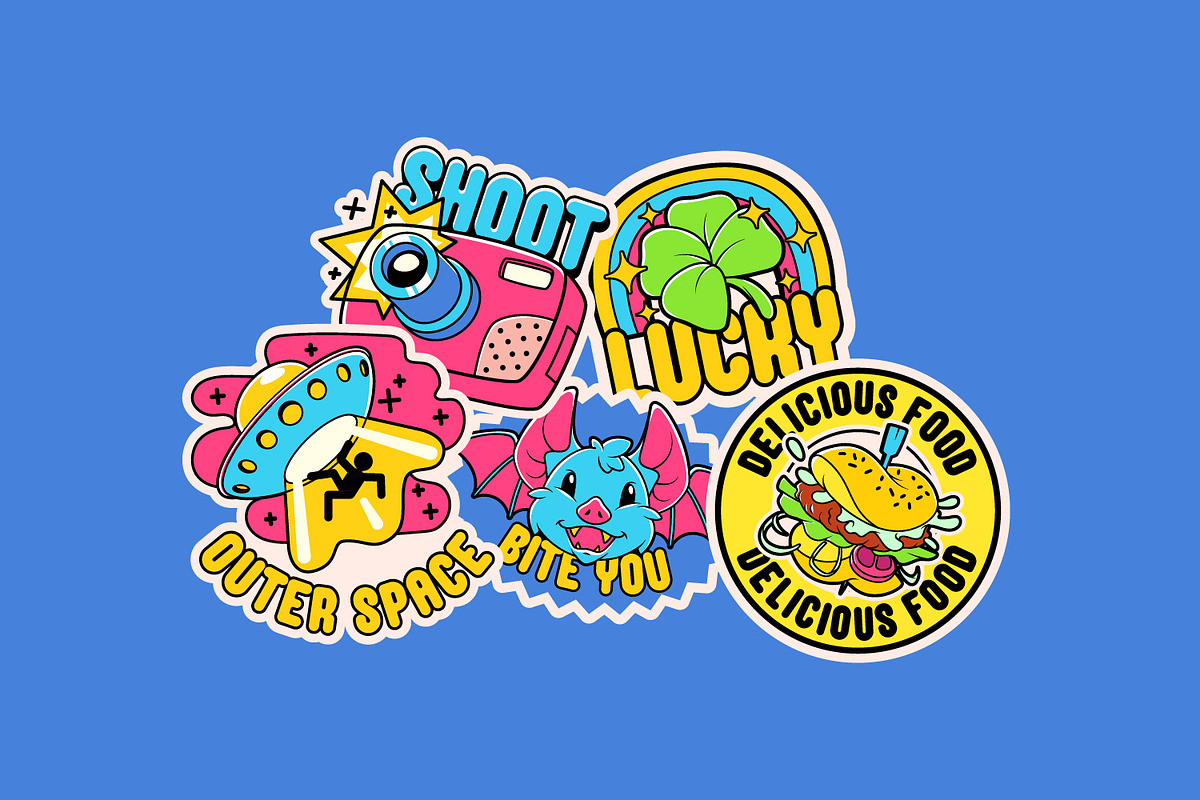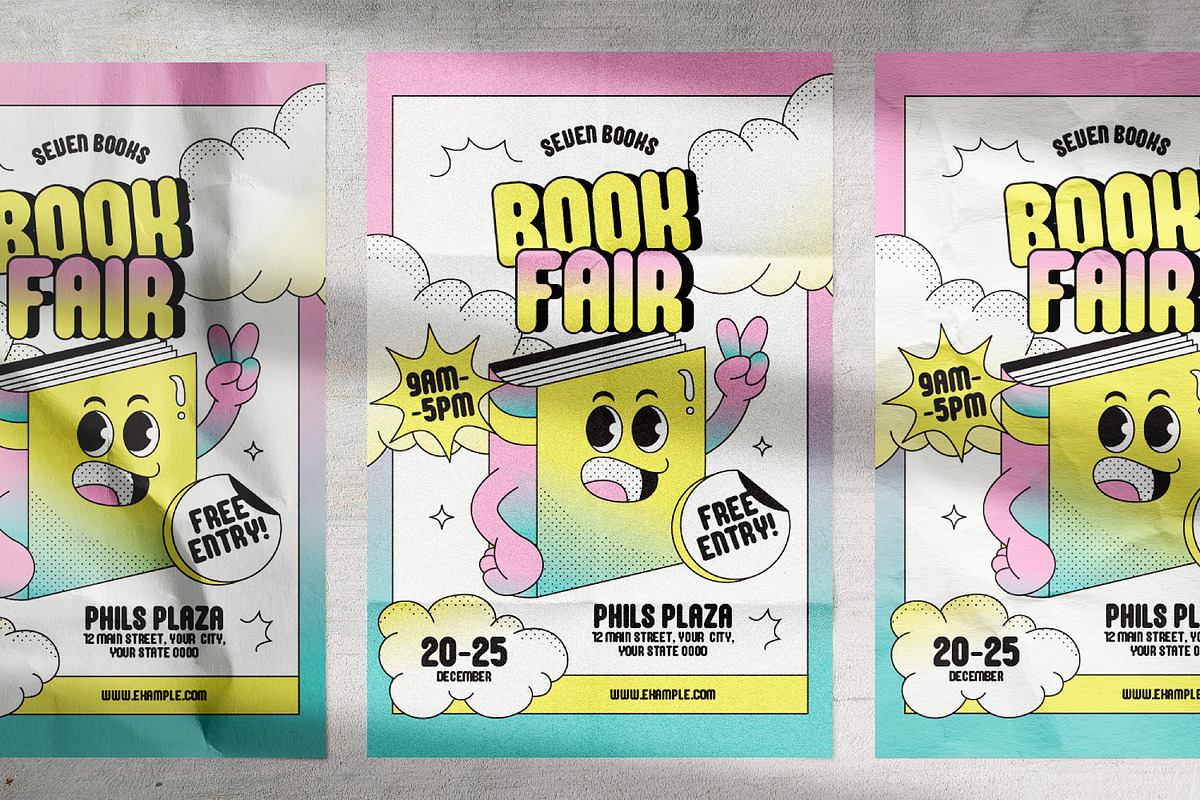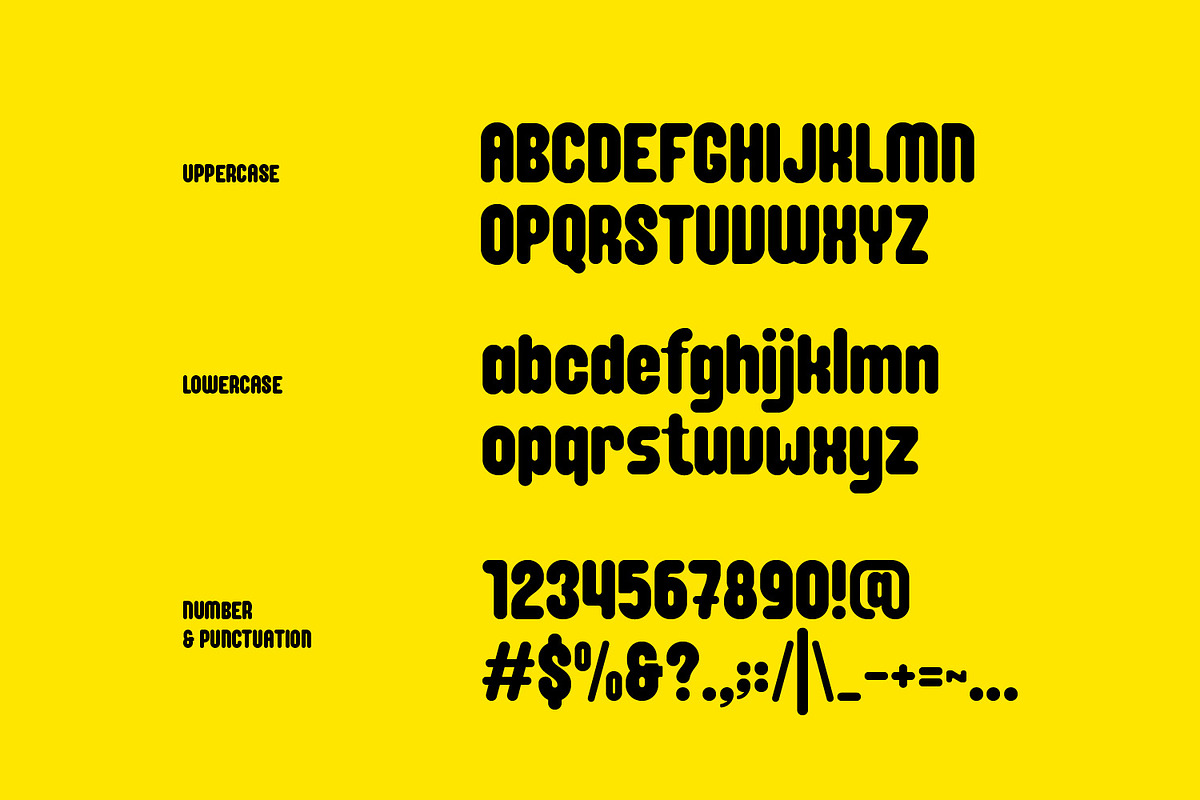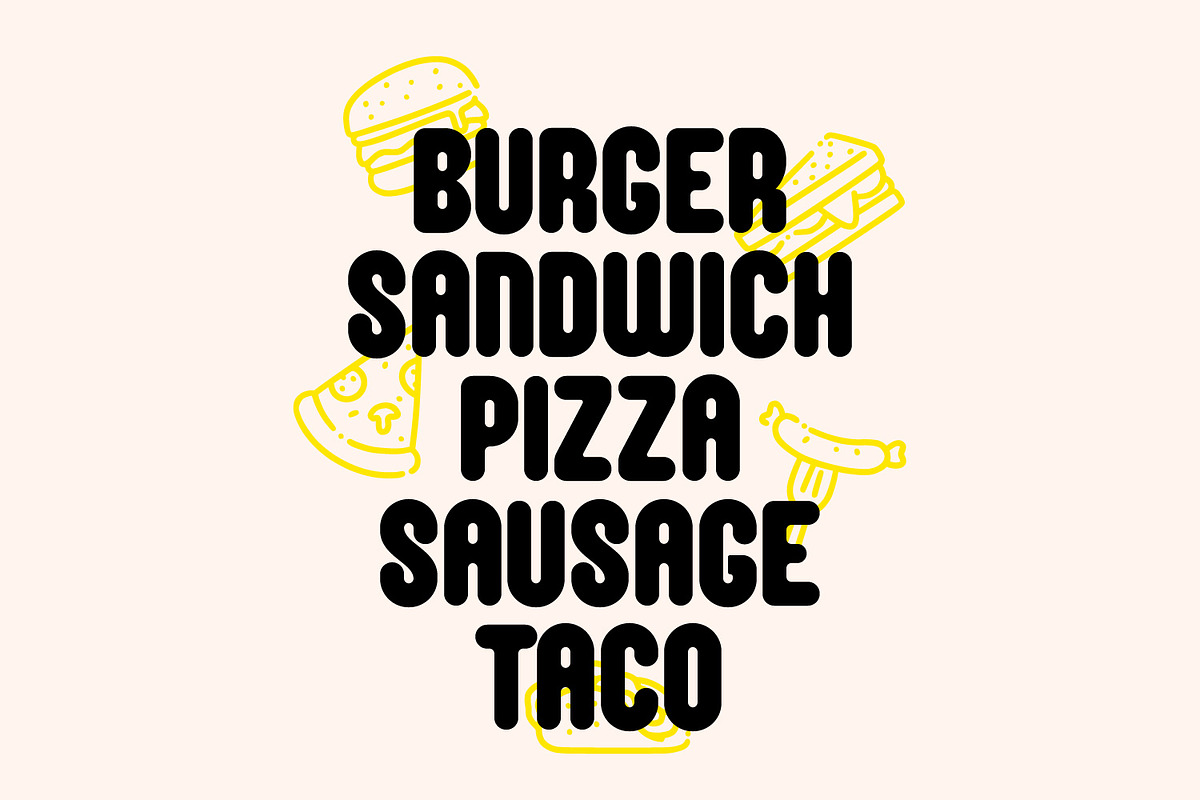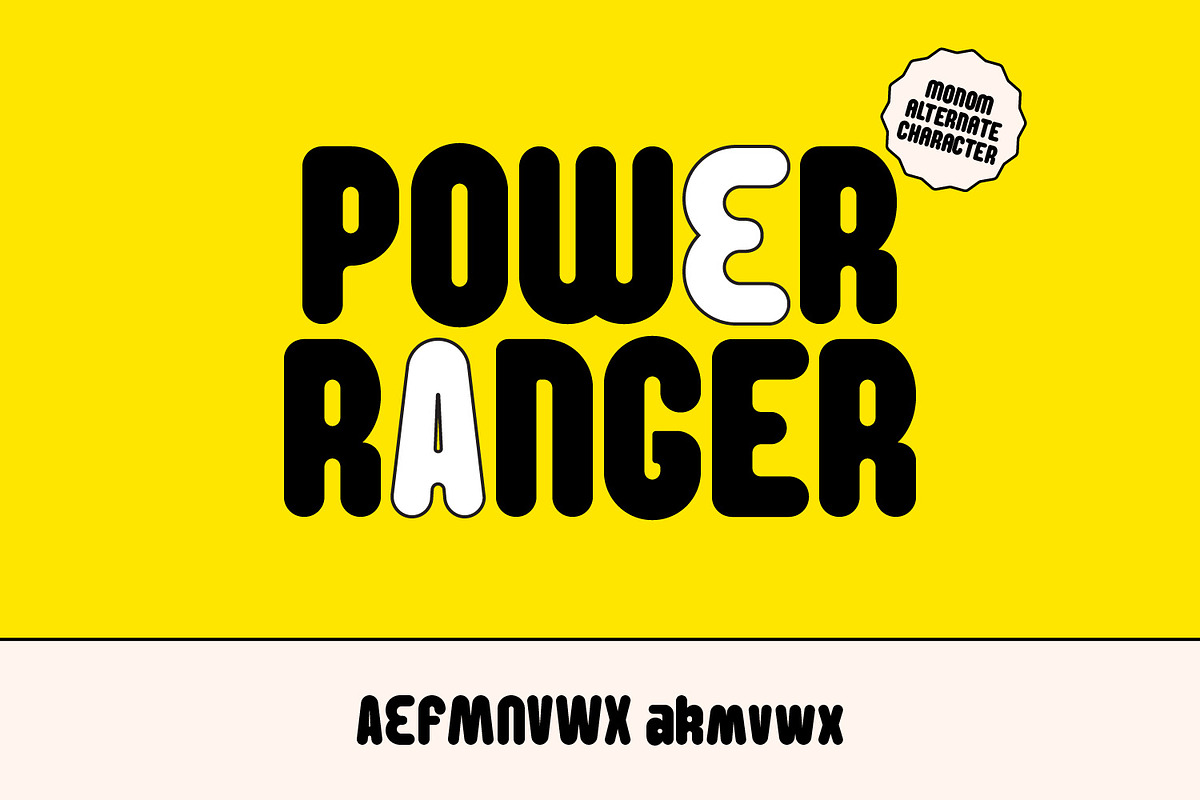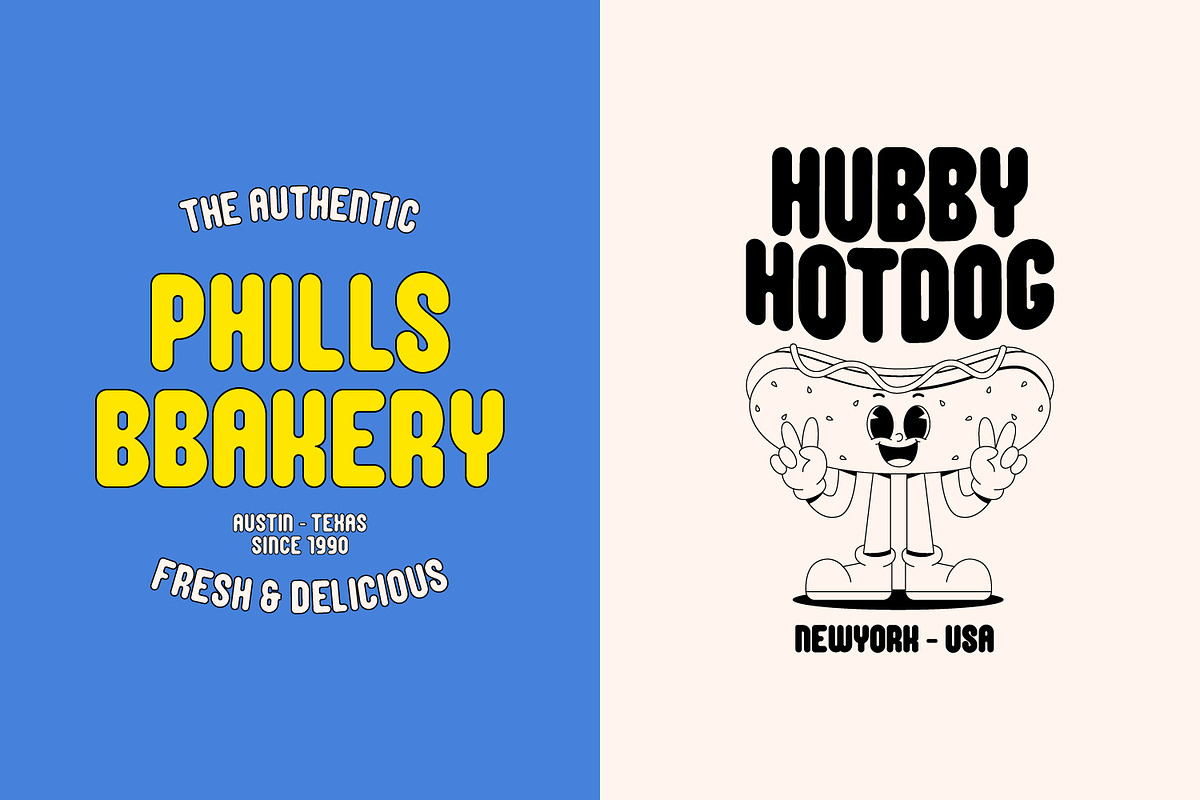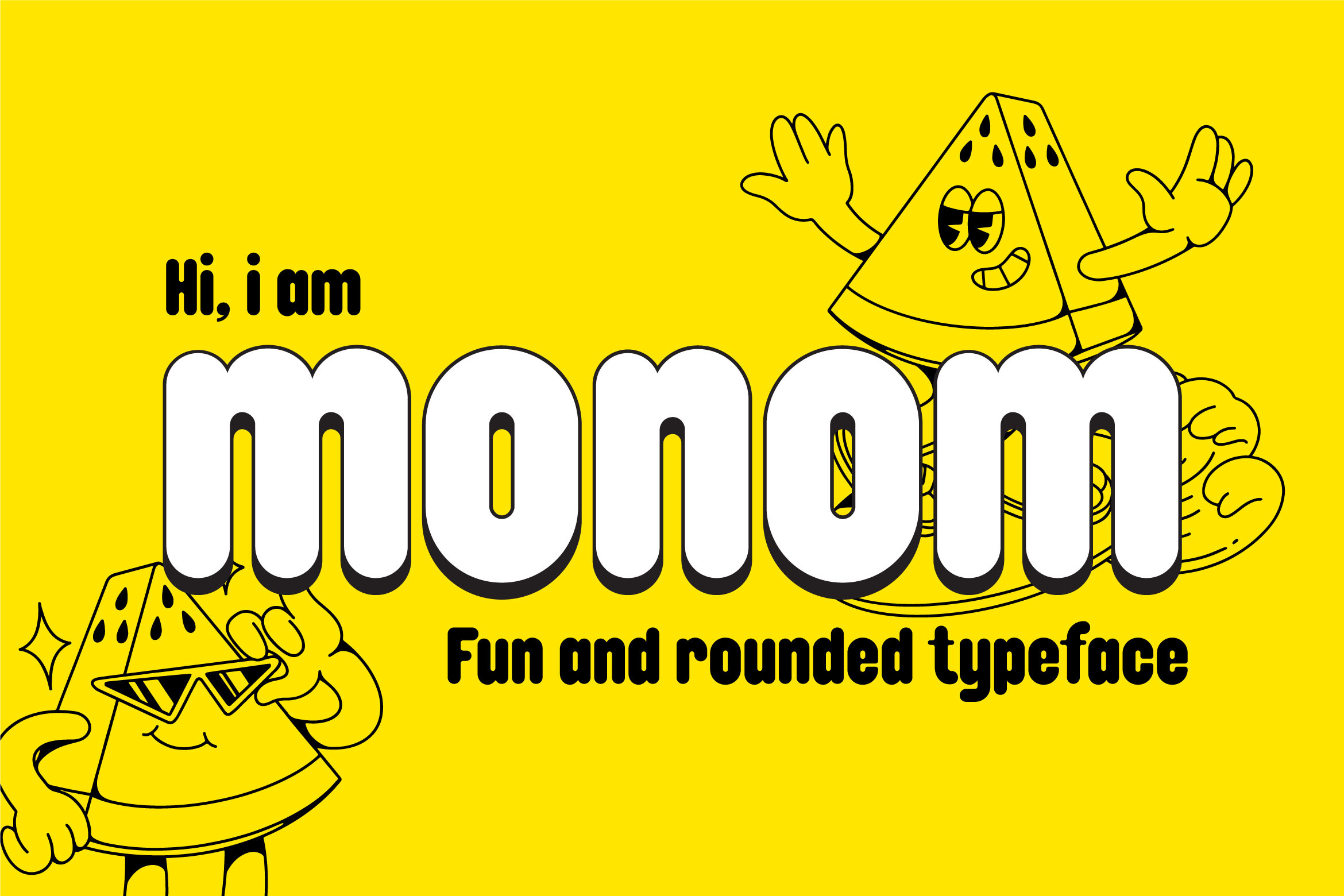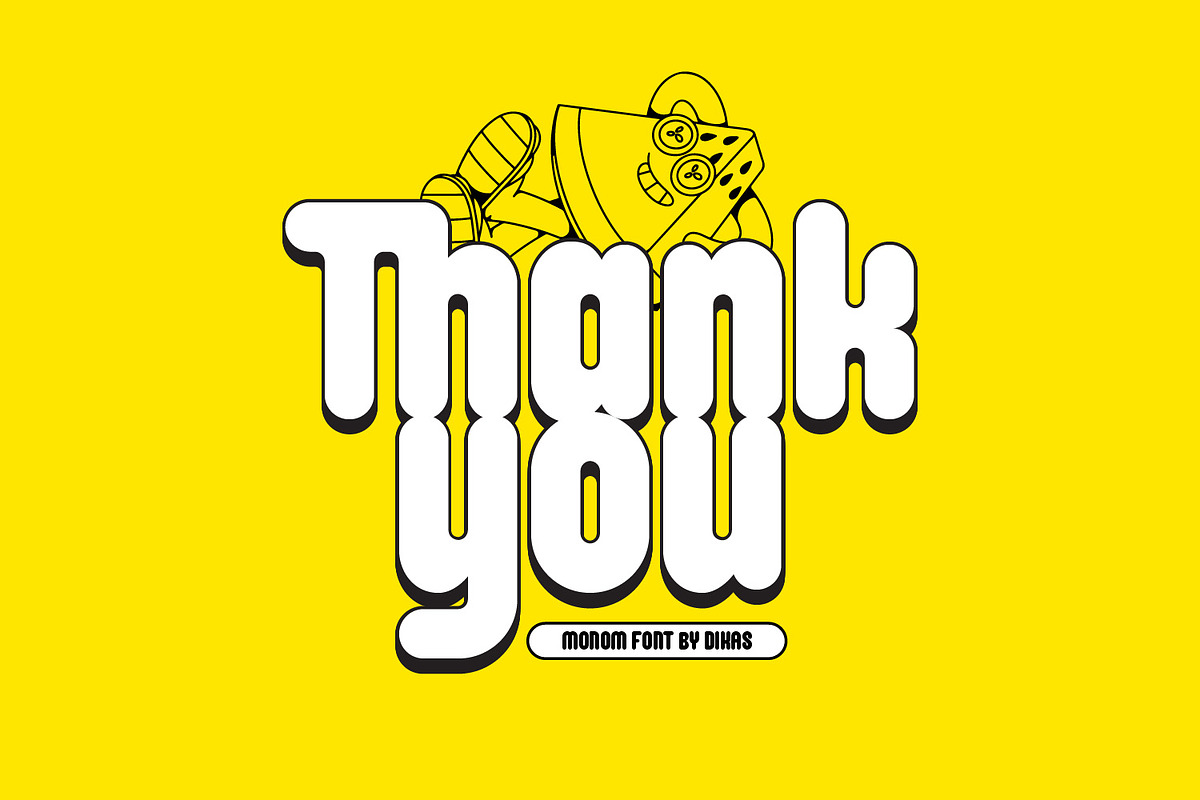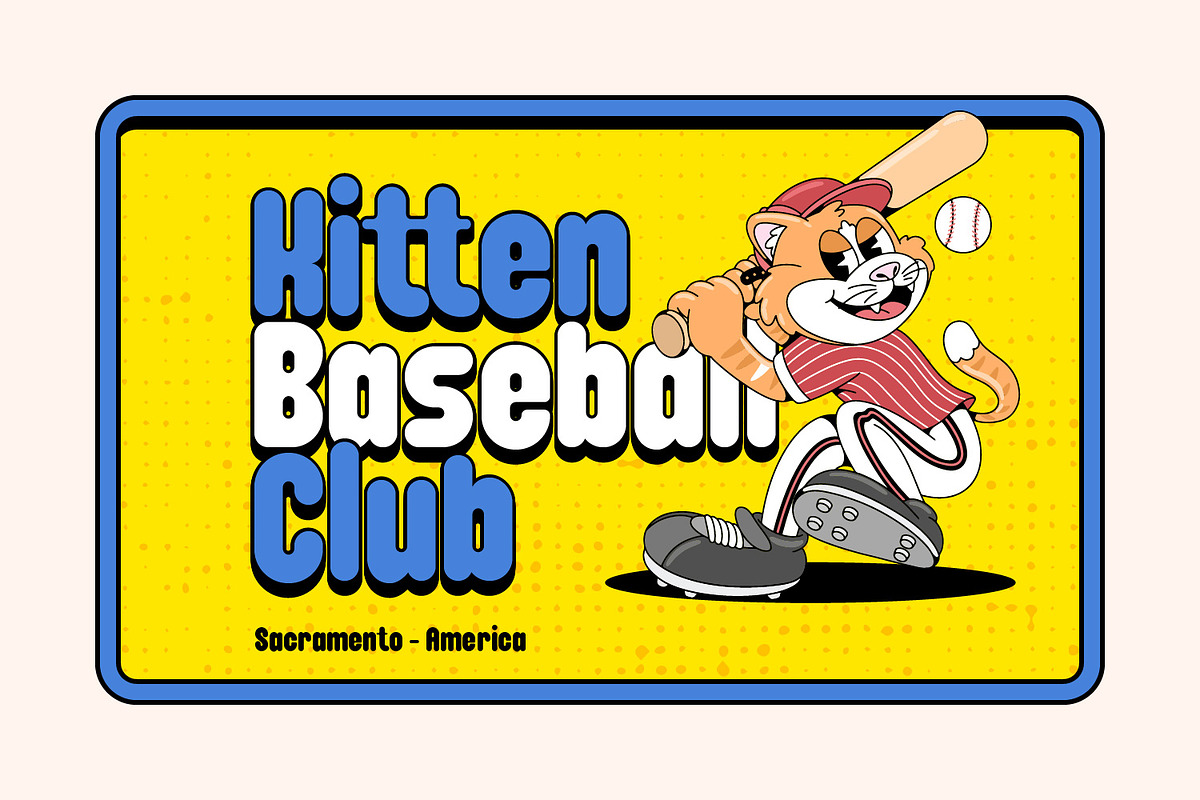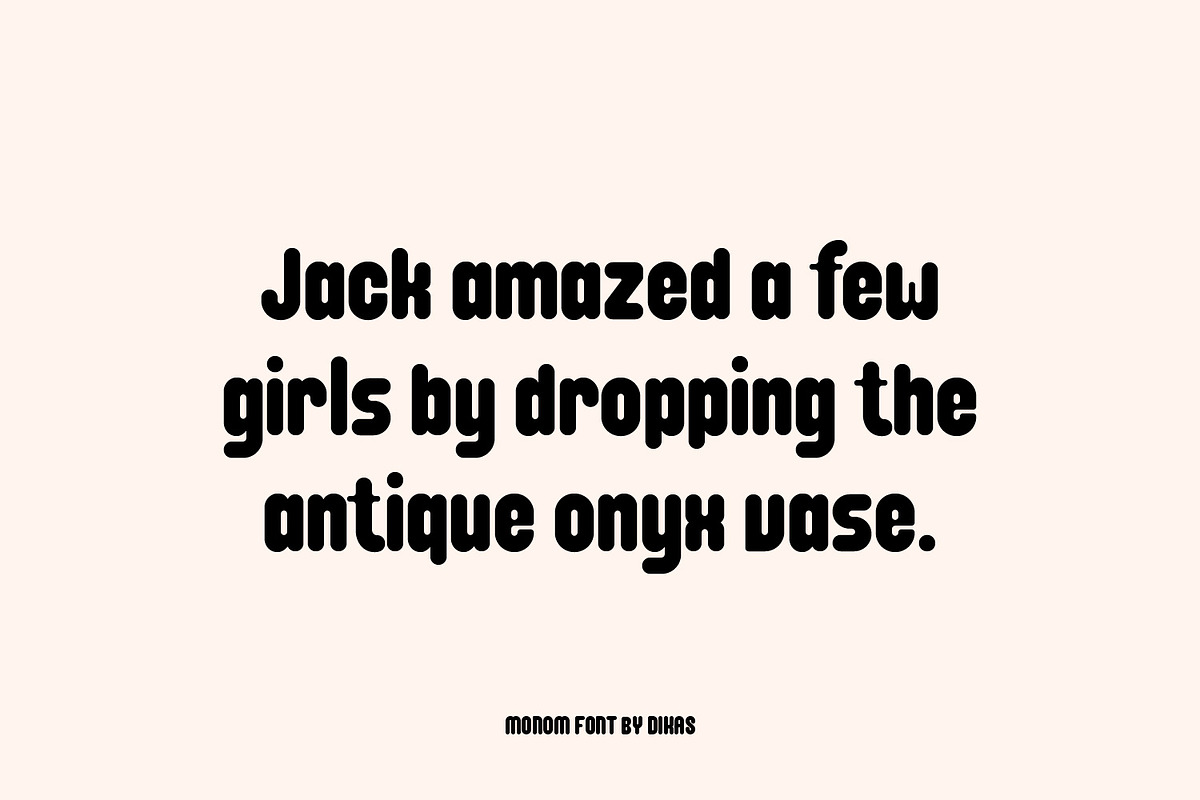
Monom - Retro Playfull Font
Monom is a rounded sans-serif font that brings a bold and cheerful touch to any project. Its playful character makes it perfect for retro and child-friendly themes, adding a sense of fun and energy to your work. Ideal for posters, food menus, logos, badges, labels, and more, Monom is the perfect choice for designs that need a lively, vibrant edge.